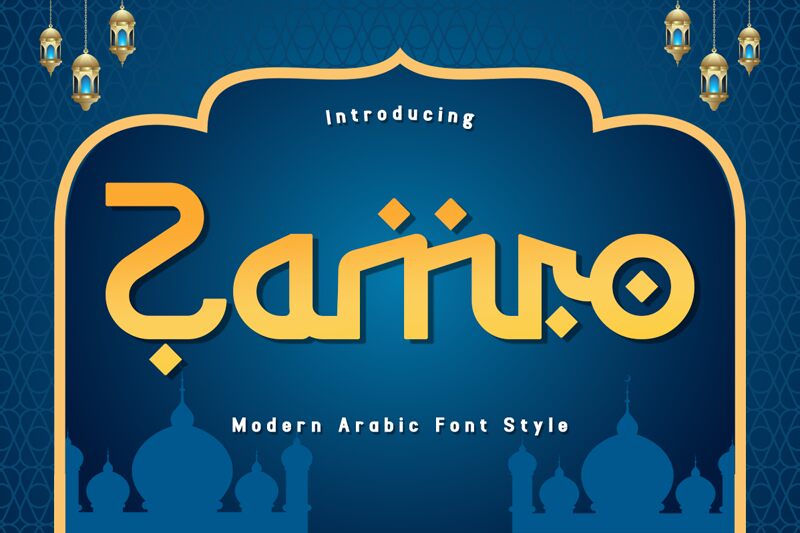
Zamro font by Kong Font is an original foreign free font that features a modern Arabic influence, geometric balance, and contemporary visual statement. While Zamro doesn’t replicate typical Arabic alphabets and typographic styles, its presence is still distinctive. The typeface carries unique characteristics such as ornamental touch, sharp edges, and mirrored letter design. Zamro is available in a single font style in uppercase characters only.
This decorative font is designed for headlines, subheadings, invitation cards, logos, branding projects, fashion magazine cover designs, product packaging, social media posts, posters, and animations. Zamro can be paired with a minimal body text font in complementary or contrasting color schemes for maximum impact.